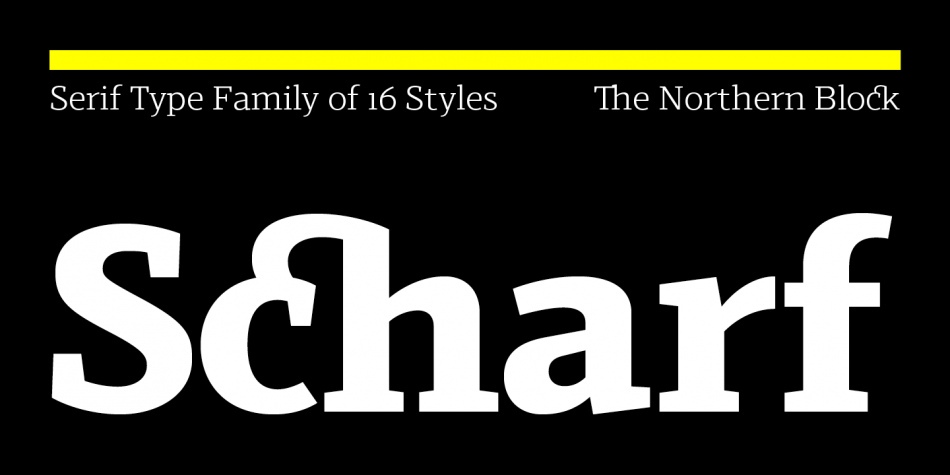
Scharf Font
Scharf Font is perfect for various design applications including precision engineering branding, high-tech company logos, cutting-edge product packaging, surgical instrument labeling, automotive performance brands, aerospace industry materials, modern architectural signage, advanced manufacturing communications, precision tool marketing, and innovative technology presentations. This sharp typeface excels in projects requiring technical precision and cutting-edge sophistication that communicates accuracy, innovation, and uncompromising quality standards.
What makes Scharf Font so exciting is its razor-sharp embodiment of precision engineering and technical excellence through letterforms that suggest surgical accuracy and cutting-edge technology. The font features crisp angular construction with knife-edge precision, ultra-clean geometric forms that eliminate unnecessary softness, and mathematical proportions that reflect engineering perfection. Its distinctive sharp character and technical sophistication make it ideal for brands seeking to communicate precision, innovation, and the kind of exacting standards that define cutting-edge technology and advanced manufacturing.
The Scharf Font family includes multiple weights from light to black, each maintaining the signature sharp precision while offering varying degrees of visual impact for technical applications. The family also features condensed variants and extended character sets that provide flexibility for complex technical documentation. Additional technical symbols, engineering notation characters, and precision measurement indicators complement the main typeface, providing comprehensive tools for technical communication systems.
Whether you're developing precision brands, advanced technology campaigns, or technical communications, Scharf Font Free Download delivers the typographic accuracy that cutting-edge industries demand. This typeface transforms standard communications into precise statements that reflect technical competence and innovative thinking. The font's sharp appeal makes it particularly effective for engineering firms, technology companies, and precision manufacturing brands targeting professionals who demand exacting standards and cutting-edge performance.
Scharf Font stands out by delivering authentic technical precision that feels genuinely engineered rather than artificially sharp or superficially modern. Its precisely calibrated angles and mathematically perfect proportions ensure that designs communicate real technical expertise and proven capability in demanding applications. From precision instrument branding to advanced technology marketing, this font provides designers with tools to create communications that celebrate technical excellence and demonstrate mastery of precision design through sharp, cutting-edge typography that cuts through complexity with surgical accuracy.